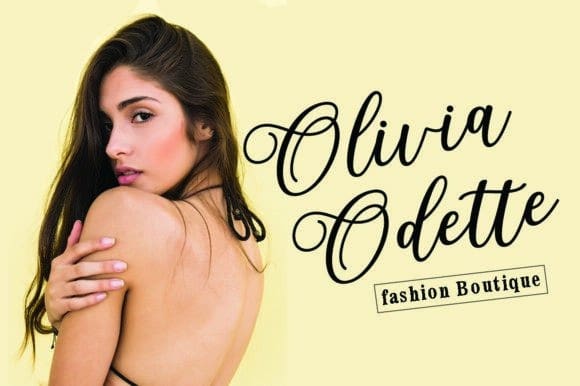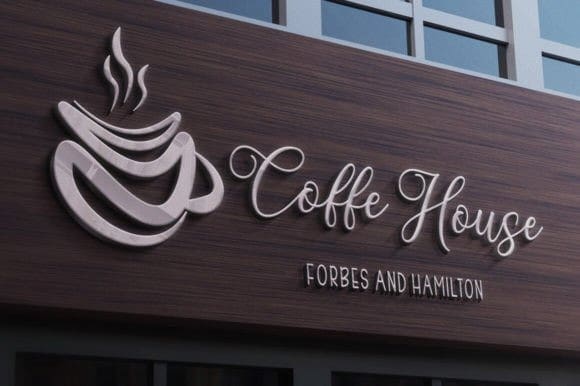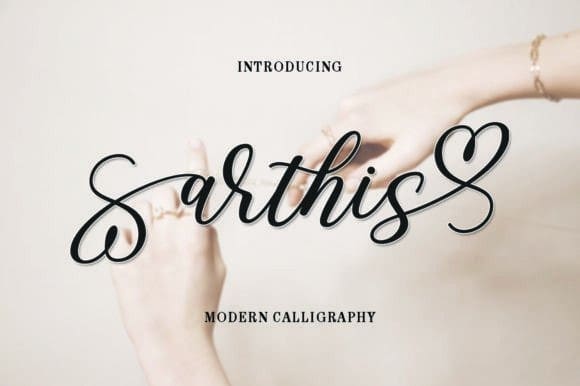
Arthis Script Font
Arthis Script Font, is a sweet and romantic calligraphic typeface with characters dancing along the baseline. It will add luxury to any design project you want to create! This font is PUA encoded which means you can access all the amazing glyphs and binders easily!